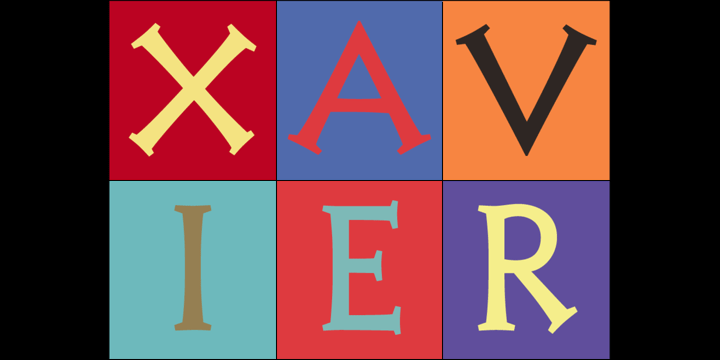
Xavier Serif Regular
The Xavier™ family of typefaces was inspired by the delightful art deco typeface called Ashley Crawford, originally designed in 1930 by Ashley Havinden. Xavier is a playful design and I have been particularly pleased to see it used in children's books.
In addition to Inline, Xavier is available in 2 styles of 5 weights each:
Sans
Regular, Medium, Bold, Extra Bold, Black
Serif
Regular, Medium, Bold, Extra Bold, Black